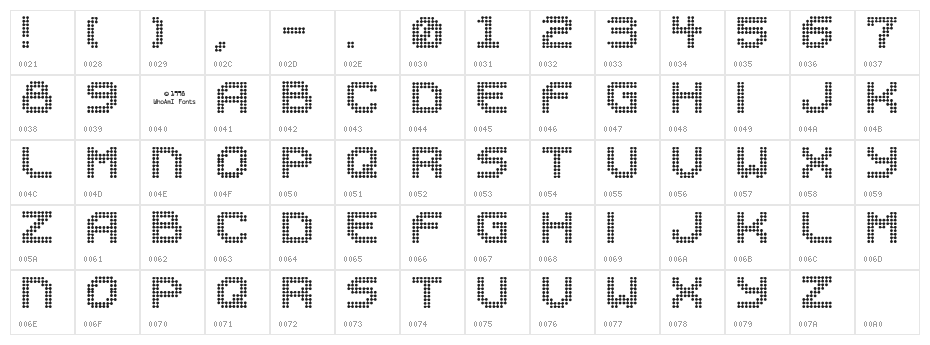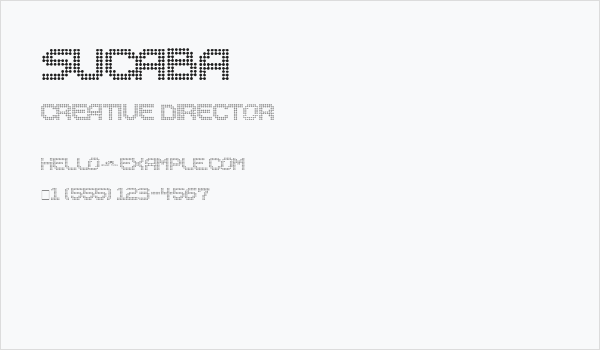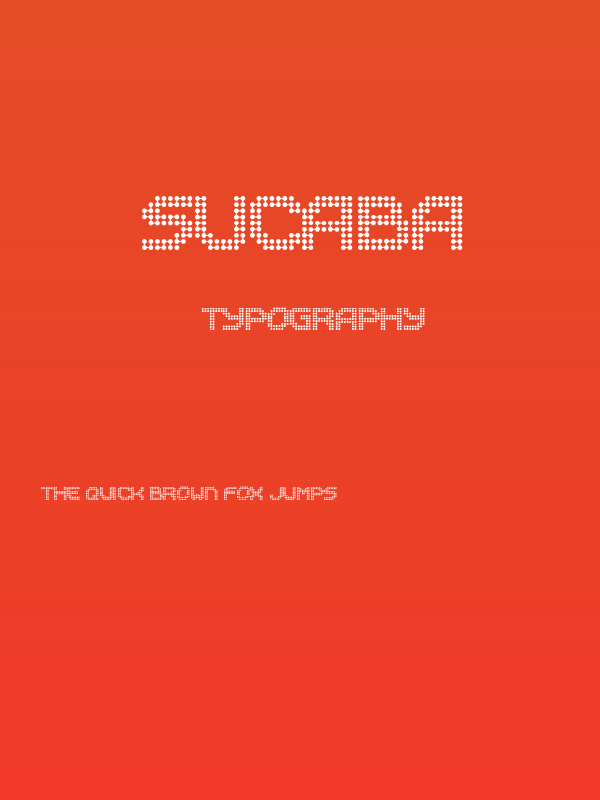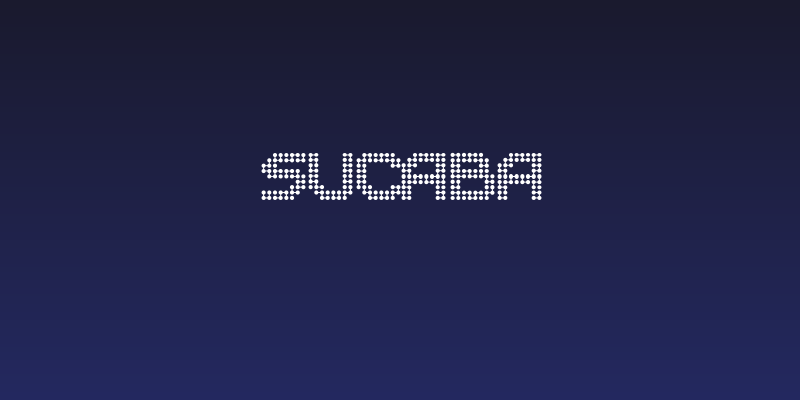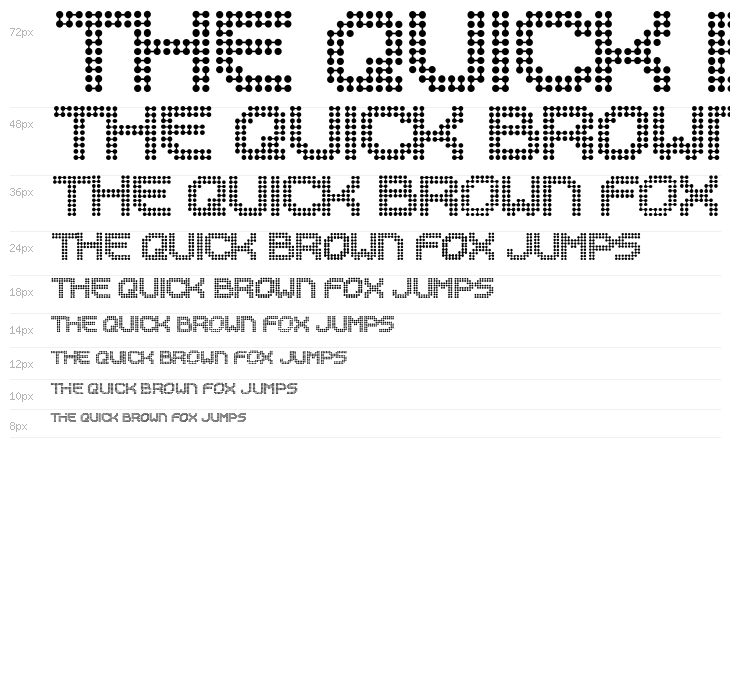
Sucaba Font
Sucaba Description
This font features a unique dot matrix style, where each character is constructed from a grid of evenly spaced dots. The design is reminiscent of digital displays and retro technology, offering a distinct and modern aesthetic. The uppercase and lowercase letters maintain consistent spacing and alignment, creating a cohesive look. Numbers and special characters follow the same dot pattern, ensuring uniformity across all glyphs. This font's playful yet structured appearance makes it suitable for creative and tech-oriented projects.
| Use Case | Headlines, Logos, Digital displays |
| Proposed Projects | Ideal for digital displays, tech-themed designs, retro posters, and creative branding. |